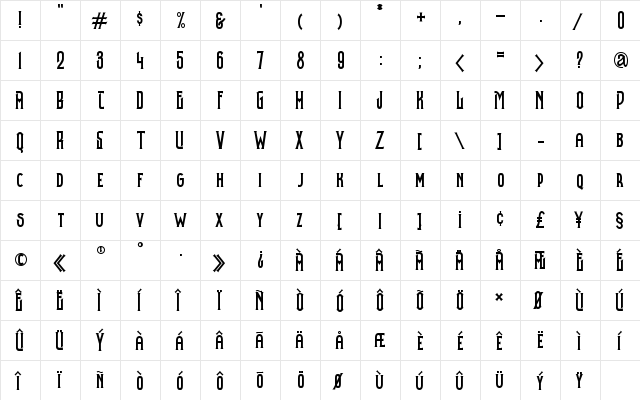
Astaroth Regular
| Foundry | Typotopia |
| Designer | Typotopia |
Design Context for Astaroth Typeface
Astaroth takes a measured approach to typography — its balanced proportions and neutral character make it a reliable workhorse for both digital and print work.